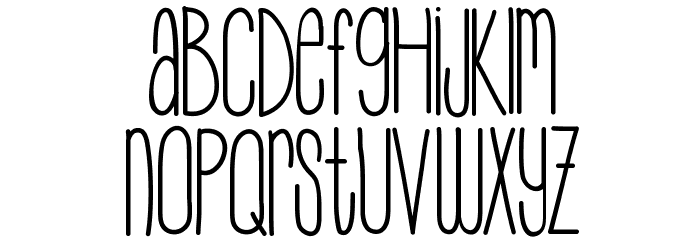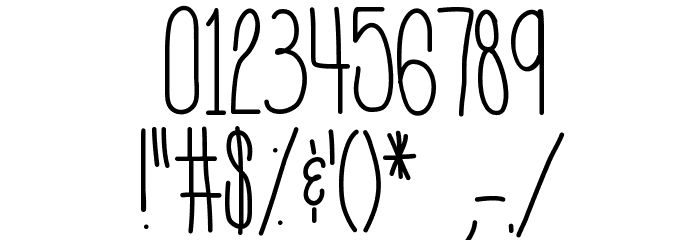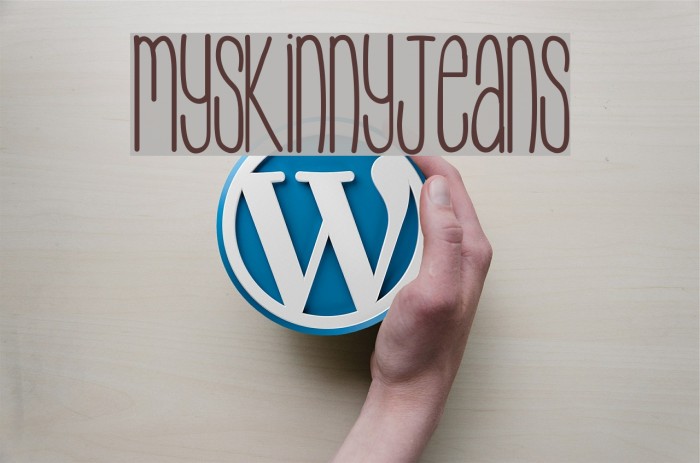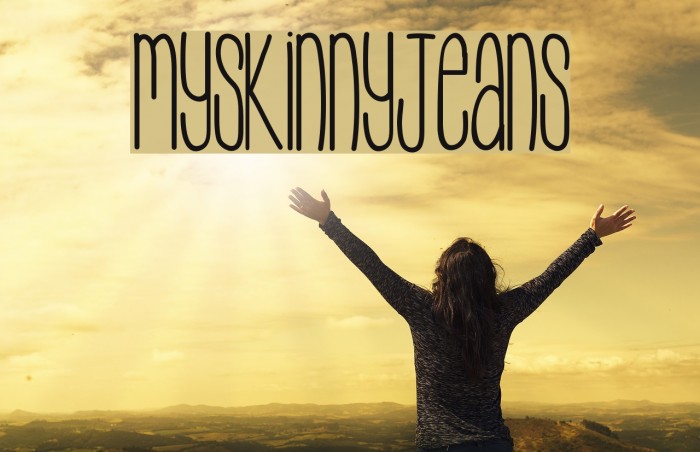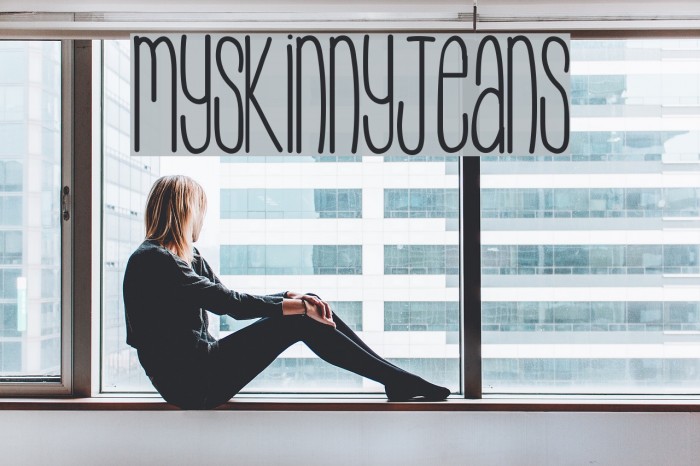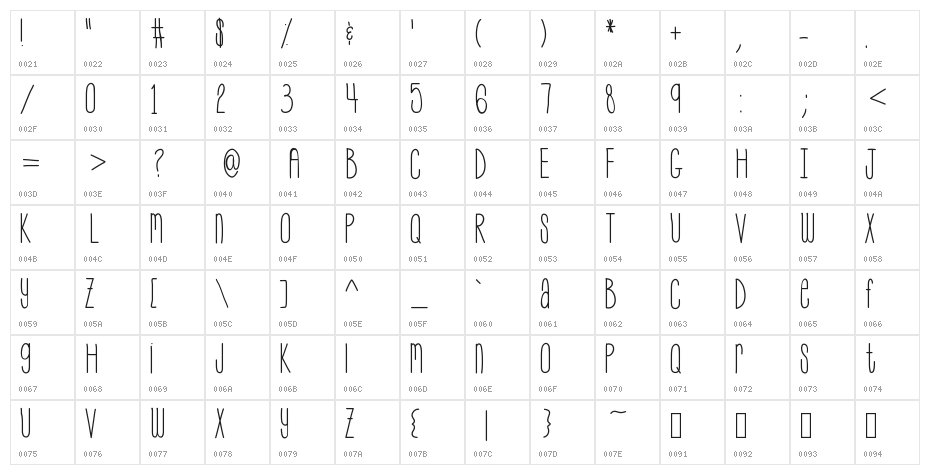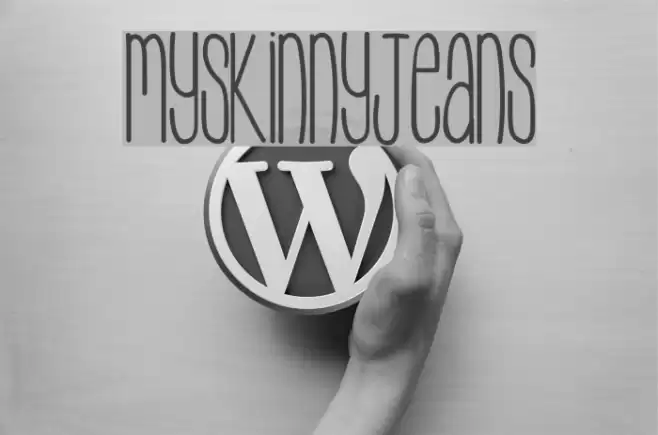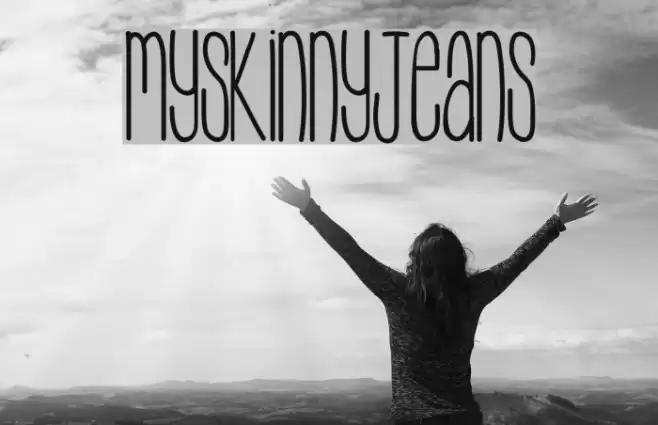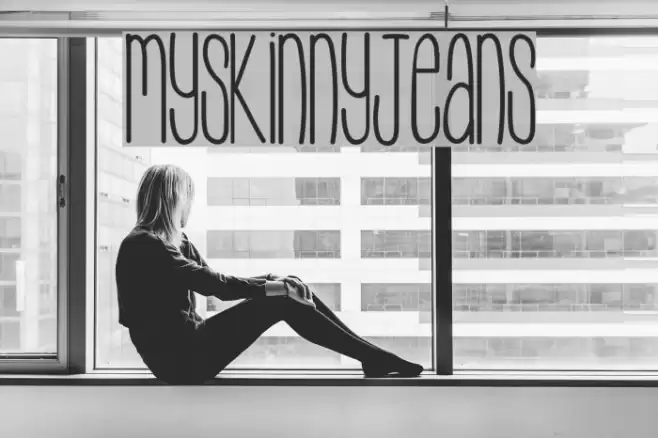
MySkinnyJeans Font
This font features a tall and narrow design with elongated characters, giving it a distinctive and modern appearance. The letters are uniformly thin, contributing to a sleek and elegant aesthetic. The uppercase and lowercase letters maintain a consistent height ratio, enhancing readability while preserving a unique style. The numerals and special characters follow the same slender design, ensuring a cohesive look across all text elements. This font's minimalistic approach makes it versatile for various design applications, offering a contemporary feel that can be both playful and sophisticated.
A tall, narrow, and modern font with elongated, thin characters.
- Proposed Projects: Ideal for fashion branding, modern posters, minimalist websites, and creative packaging.